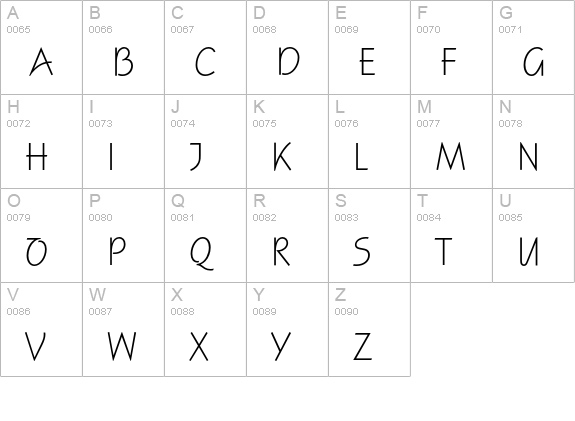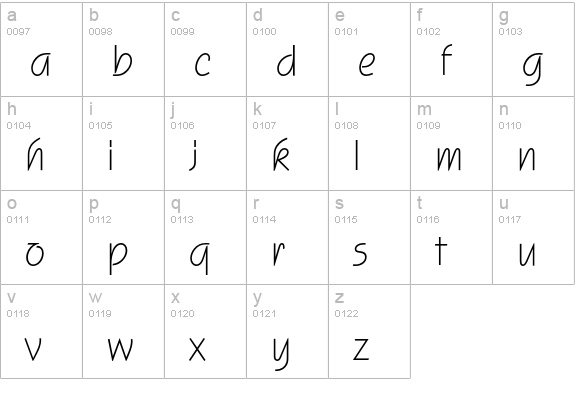
SquireEF-Regular Font Details
SquireEF-Regular is the standard, neutral variant in the SquireEF typeface family \xE2\x80\x94 well suited to general body text, paragraphs, and standard typographic work.
SquireEF-Regular is a versatile and elegant font that effortlessly combines classic and modern elements. With its clean lines and balanced proportions, this font is perfect for a wide range of design projects, from branding and packaging to editorial and web design. What makes SquireEF-Regular truly special is that it is not only visually stunning but also freely available to download at FontsMarket.com. This means that you can access this exceptional font without any cost, making it an excellent choice for budget-conscious designers and creatives. With its wide range of weights and styles, SquireEF-Regular offers endless possibilities for customization and creative expression. Whether you're looking for a bold and impactful headline or a refined and sophisticated body text, this font has got you covered. The letterforms of SquireEF-Regular are meticulously crafted, ensuring legibility and readability even at smaller sizes. The attention to detail is evident in every curve and stroke, resulting in a font that is both aesthetically pleasing and highly functional. SquireEF-Regular's versatility extends beyond traditional print media. Its clean and modern design translates seamlessly to digital platforms, making it an excellent choice for websites, apps, and social media graphics. Overall, SquireEF-Regular is a font that combines timeless elegance with modern flair. Its freely available nature at FontsMarket.com makes it a valuable asset for designers and creatives seeking high-quality typography without breaking the bank. Download this font today and elevate your design projects to new heights.